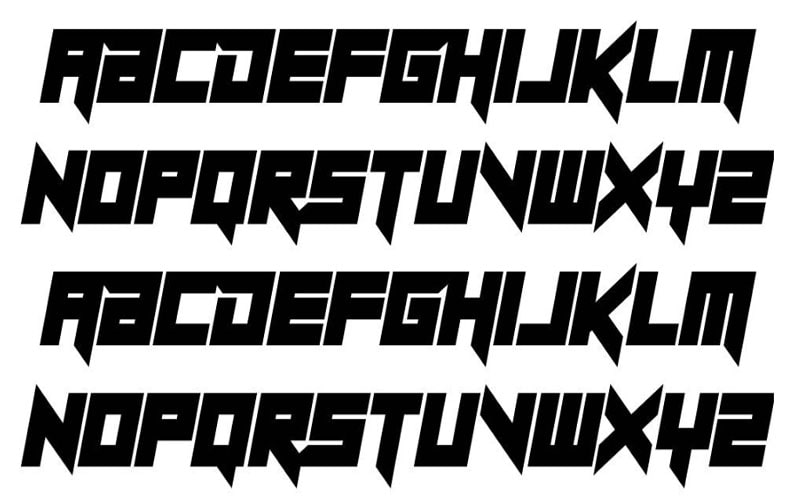
Sheeping Cats Font is a charming and unique typeface that effortlessly blends whimsy with functionality. Its playful design and versatile applications make it a standout choice for various creative projects.
It was created by a talented designer Chequered Ink known for its innovative approach to typography. The font draws inspiration from whimsical themes and aims to infuse a light-hearted, playful spirit into everyday design.
This Font family includes a range of styles such as Sheeping Cats Regular, Sheeping Cats Bold, Sheeping Cats Italic, Sheeping Cats Bold Italic to suit different design needs.
Each typeface retains the distinctive characteristics of the font, offering variations in weight and style to enhance its versatility and usability. Let’s have a look at its texture.
Sheeping Cats Font
| Font Name: | Sheeping Cats Font |
| Style: | Techno, Various, Typeface |
| Font Designer: | Chequered Ink |
High legibility and Aesthetic Appeal Supports a wide range of languages, enhancing its versatility for global use. Combines whimsical design with functional readability, making it a unique choice.
Its bold style adds emphasis and weight, which is ideal for headings and important text. Italic letters provide a dynamic slant that is suitable for emphasis and stylistic variation.